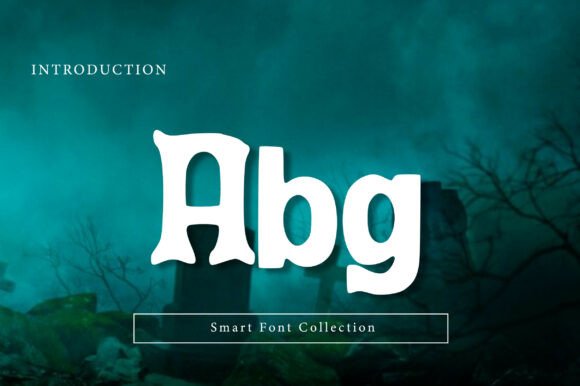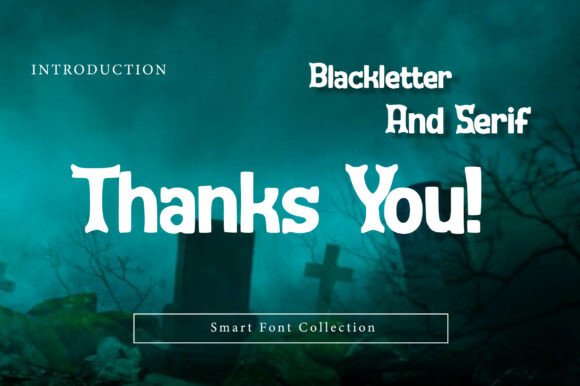
The Perfect Blend of Vintage and Modern Style
Imagine you’re working on a design project and you want to create an immediate impact. You’re scrolling through your font library, and suddenly, a bold and stylish display typeface catches your eye. It’s a font that effortlessly combines the dramatic spirit of classic blackletter lettering with the timeless elegance of serif typography.
This unique fusion is exactly what the Blackletter and Serif Font offers. It’s the perfect solution for designers who want to create a powerful visual identity that stands out from the crowd. With its thick strokes, sharp edges, and confident letterforms, this font delivers high-impact typography that instantly grabs attention.
Blackletter and Serif Font Key Features
- Font Style: Blackletter and Serif fonts are characterized by their serif and blackletter (Gothic) styles, often featuring intricate details and flourishes.
- Unique Characteristics: Distinctive features include decorative elements, such as swashes, ligatures, and ornaments, which add to the font’s elegance and sophistication.
- Legibility: Blackletter and Serif fonts are known for their high legibility, making them suitable for body text, titles, and headings in a variety of contexts.
Blackletter and Serif Font Review
Overall, I was intrigued by the Blackletter and Serif Font, and it has some great features. ✨ One of the things that works well is its unique blend of modern and traditional styles. The combination of blackletter and serif elements creates a distinctive look that can add character to any design. ✨ The font also has a wide range of weights and styles, making it versatile for various applications.
Another positive aspect is its legibility. The font is clear and easy to read, even at smaller sizes, which is essential for body text or other content where readability is crucial. ✨ Additionally, the font supports a wide range of languages, making it a great choice for global projects.
- ⚠️ The font may not be suitable for all types of designs, particularly those requiring a more minimalist or modern aesthetic.
Overall, I would say that the Blackletter and Serif Font is a solid choice for designers looking for a unique and versatile font. While it has some limitations, its strengths make it a great option for projects where a distinctive look is desired.
Getting the Most Out of Blackletter and Serif Font
For best results, use Blackletter and Serif font in combination with other design elements, such as bold fonts, italics, and subtle color schemes. Experiment with different font sizes and styles to create a visually appealing design.
Blackletter and Serif font are commonly used in:
- Formal invitations and announcements
- Historical and vintage-themed designs
- Book